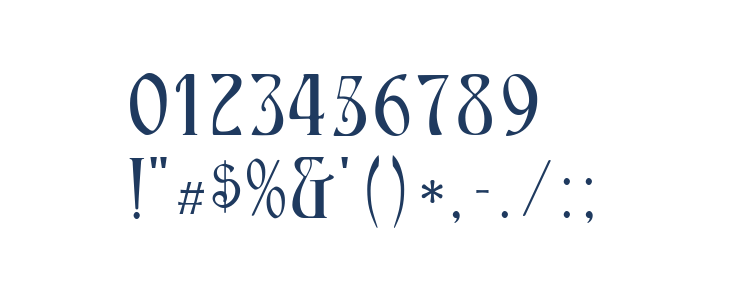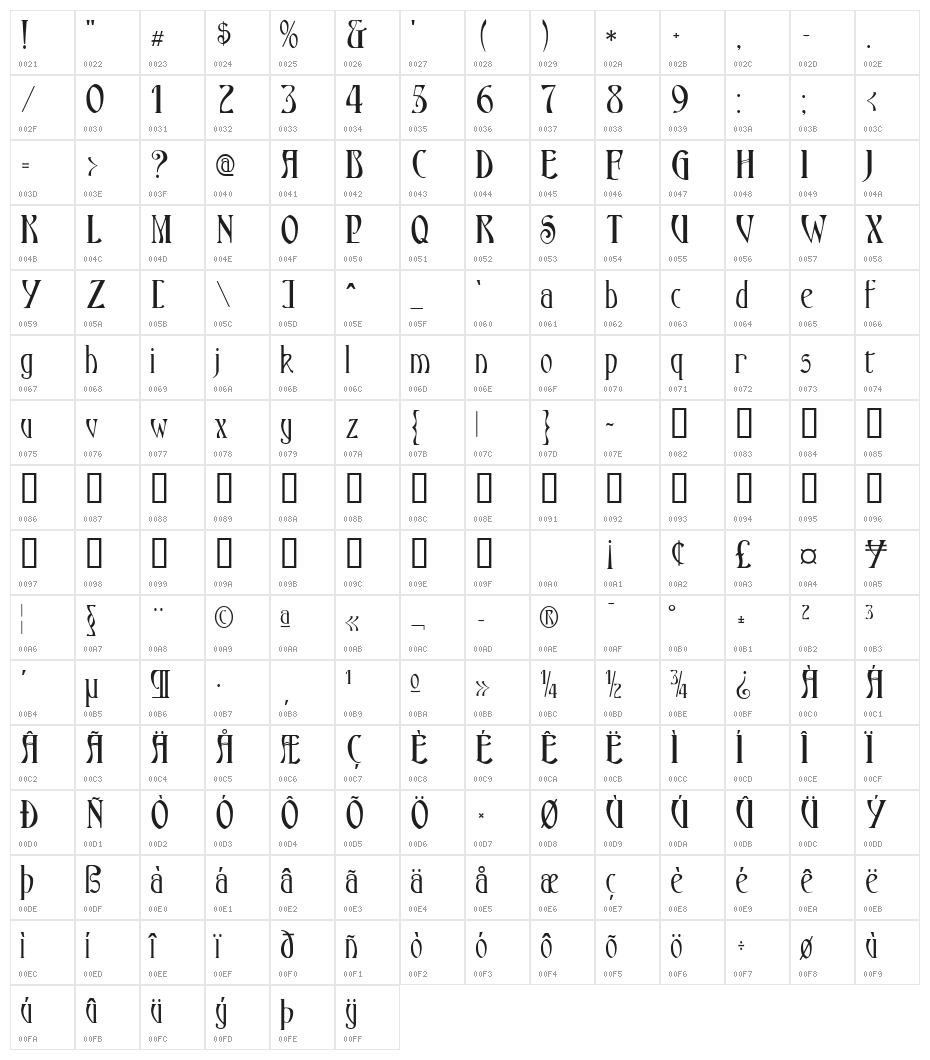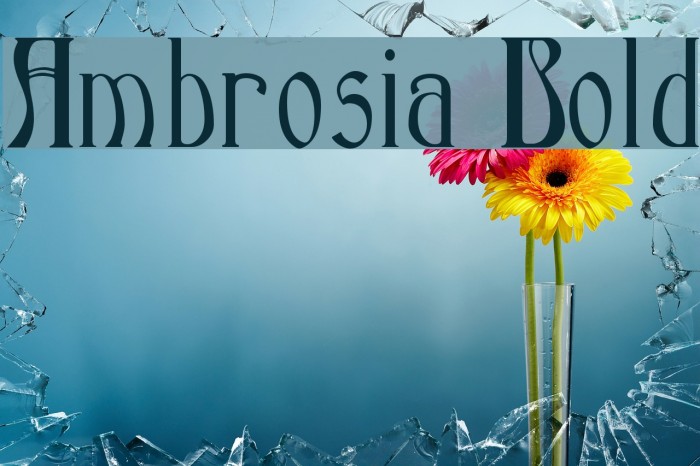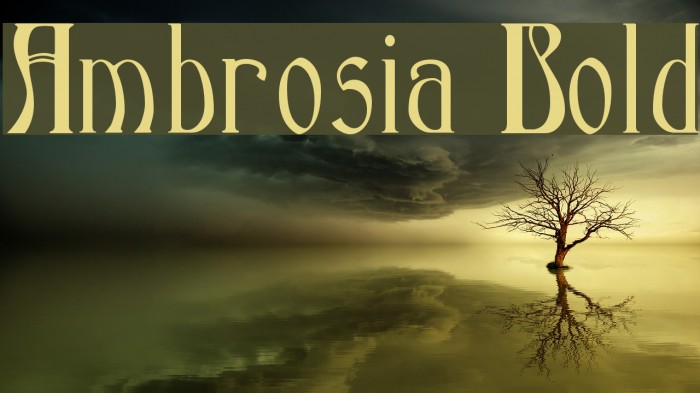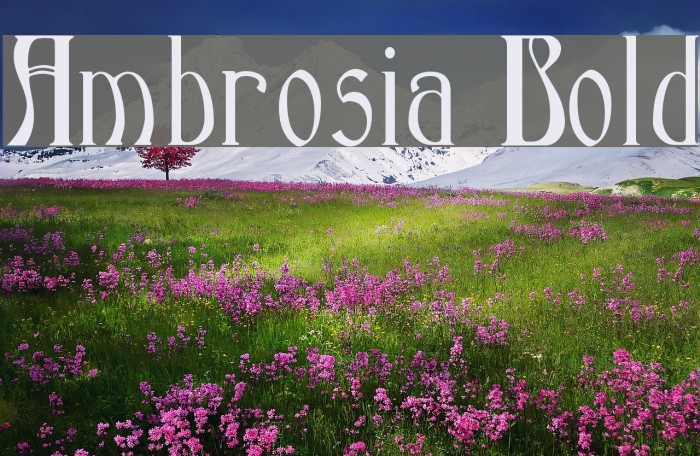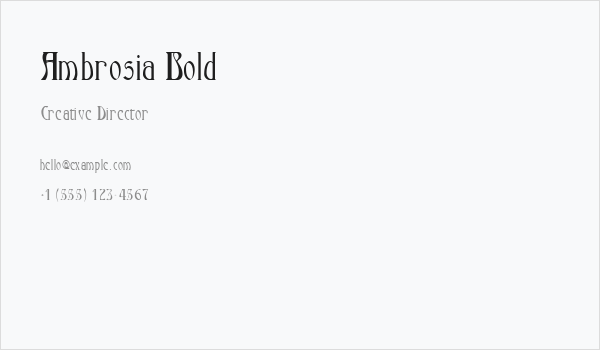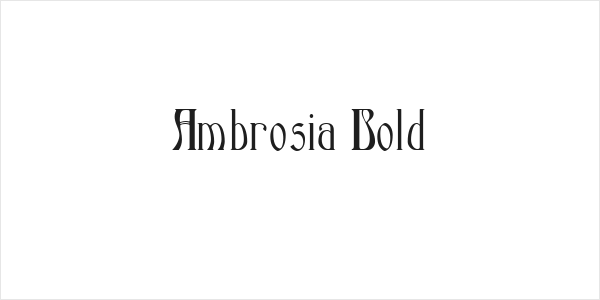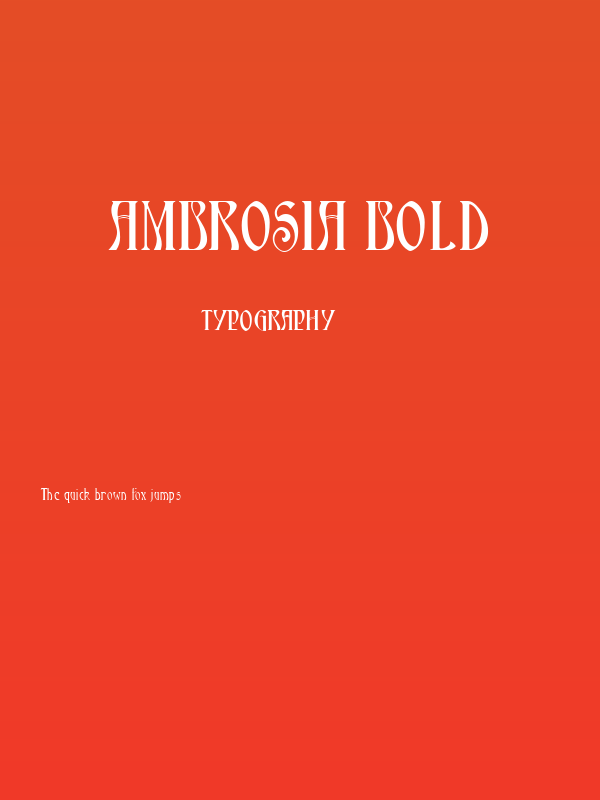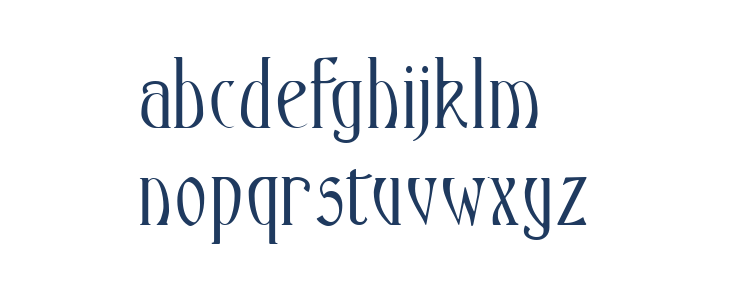
Ambrosia Bold Font
Ambrosia Bold Description
This font features a unique and artistic design, characterized by its bold and decorative style. The uppercase letters exhibit a mix of sharp angles and smooth curves, creating a dynamic and eye-catching appearance. The lowercase letters maintain a consistent style, with some characters displaying whimsical flourishes. The numerals are bold and distinct, each with its own personality, while the special characters complement the overall aesthetic. The font's high contrast between thick and thin strokes adds to its dramatic flair, making it suitable for projects that require a strong visual impact.
| Proposed Projects | Ideal for posters, branding, headlines, and any project needing a bold, artistic touch. |